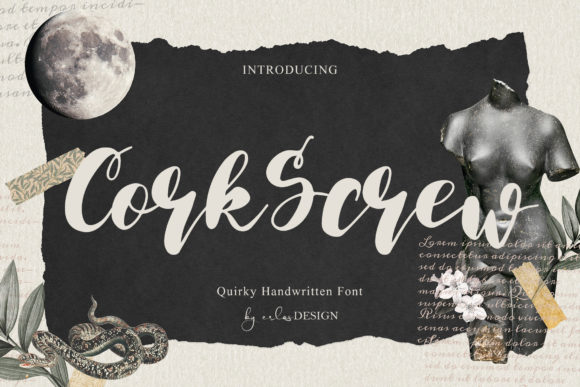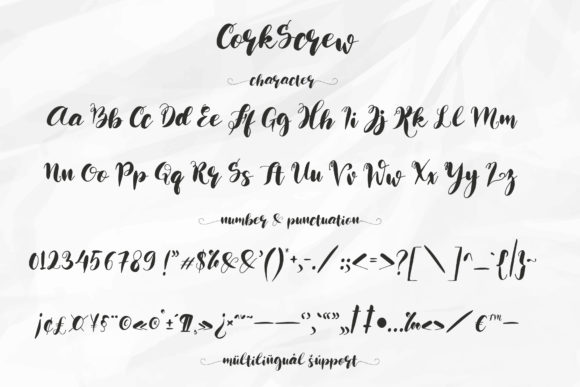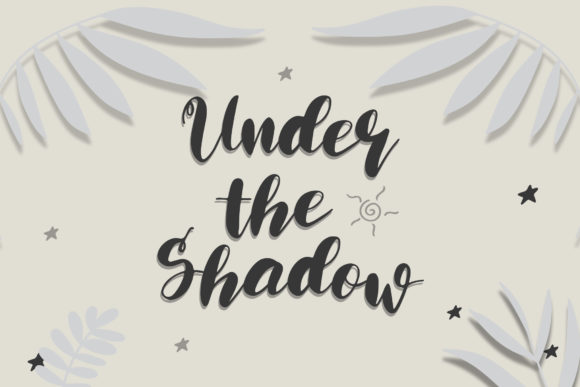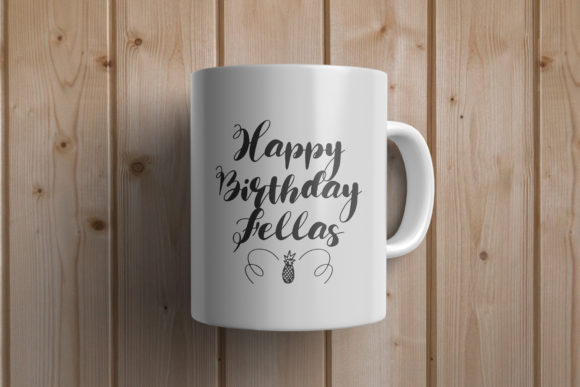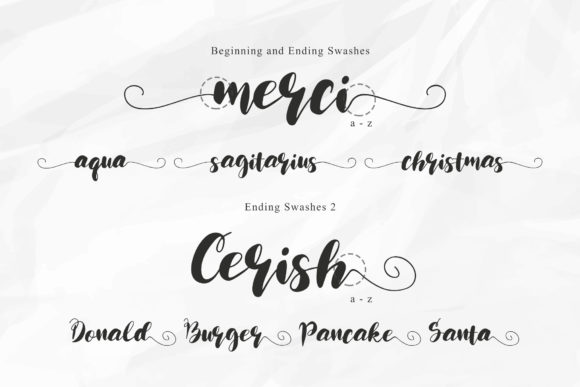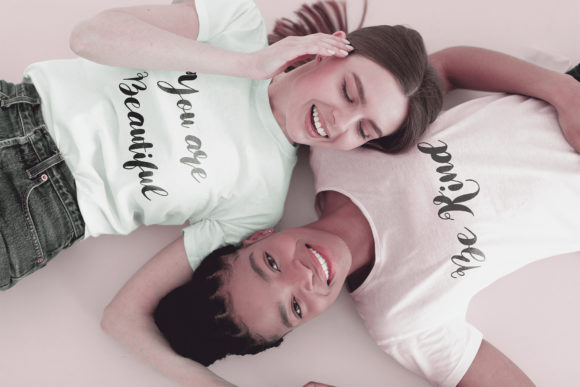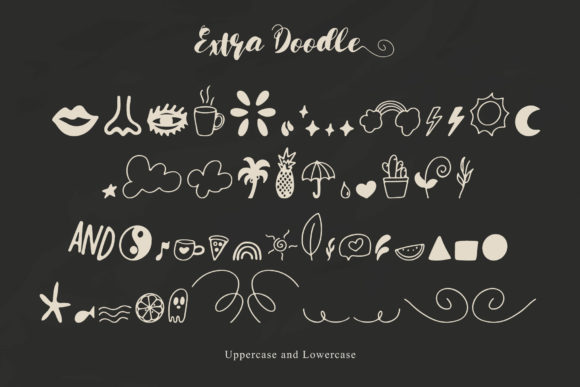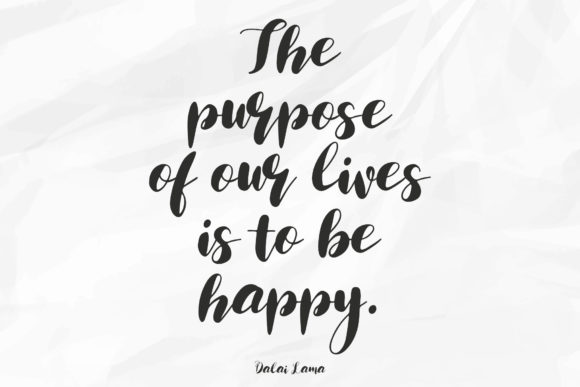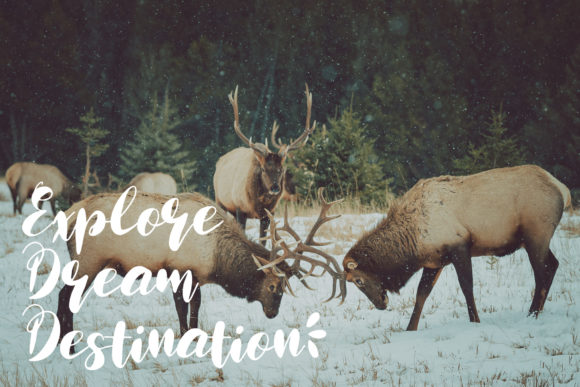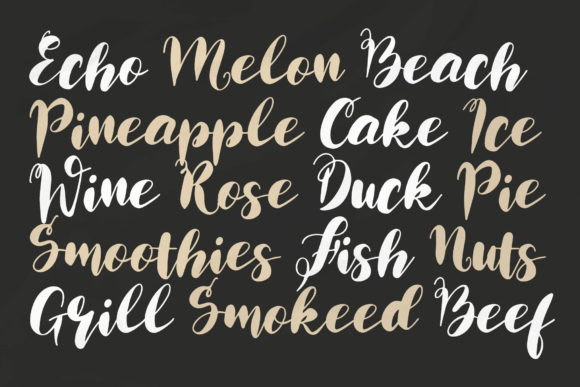
CorkScrew Font
About CorkScrew Font
CorkScrew is a quirky handwritten font, with swashes and extra doodles, perfect for various designs such as headings, logos, birthday invitations, t-shirt, letterheads, posters, and much more. Add it to your most creative projects, and notice how they capture everyone’s attention!